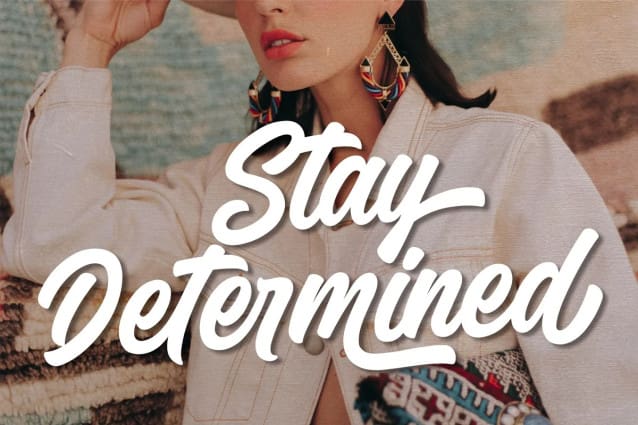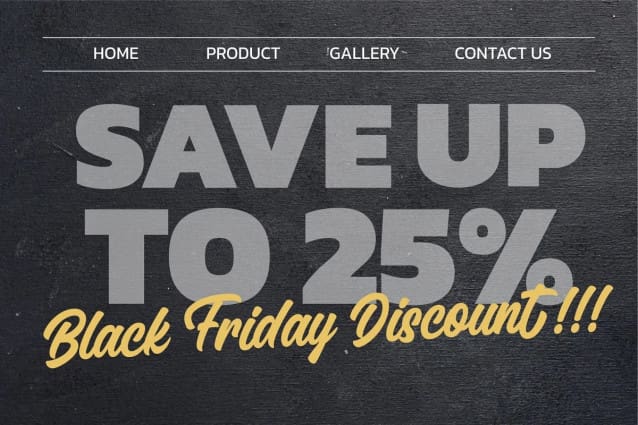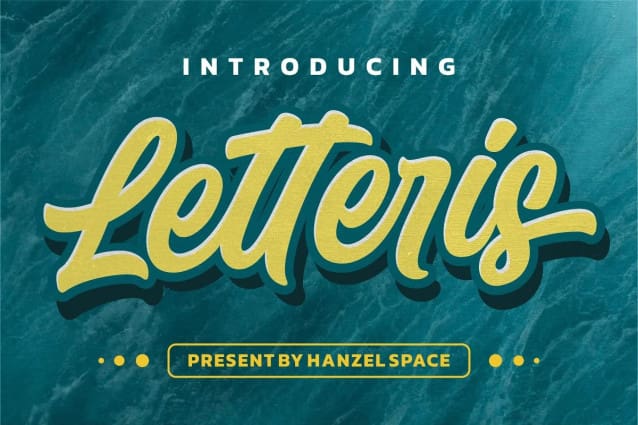
Letteris Retro Font
Letteris Retro Font, the bold script font inspired by Bold hand lettering style, Letteris font is good for branding logotype, headline, book cover, Flyer, Packaging, poster, t-shirt design and any more.
Letteris have many alternative character and have opentype features like a stylistic alternatice, stylistic set, ligature and swash so you can mix and match like a you want.